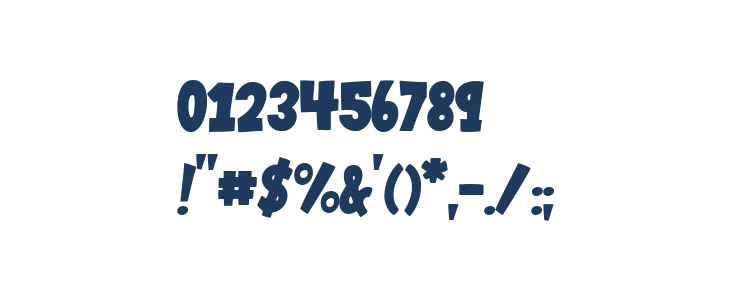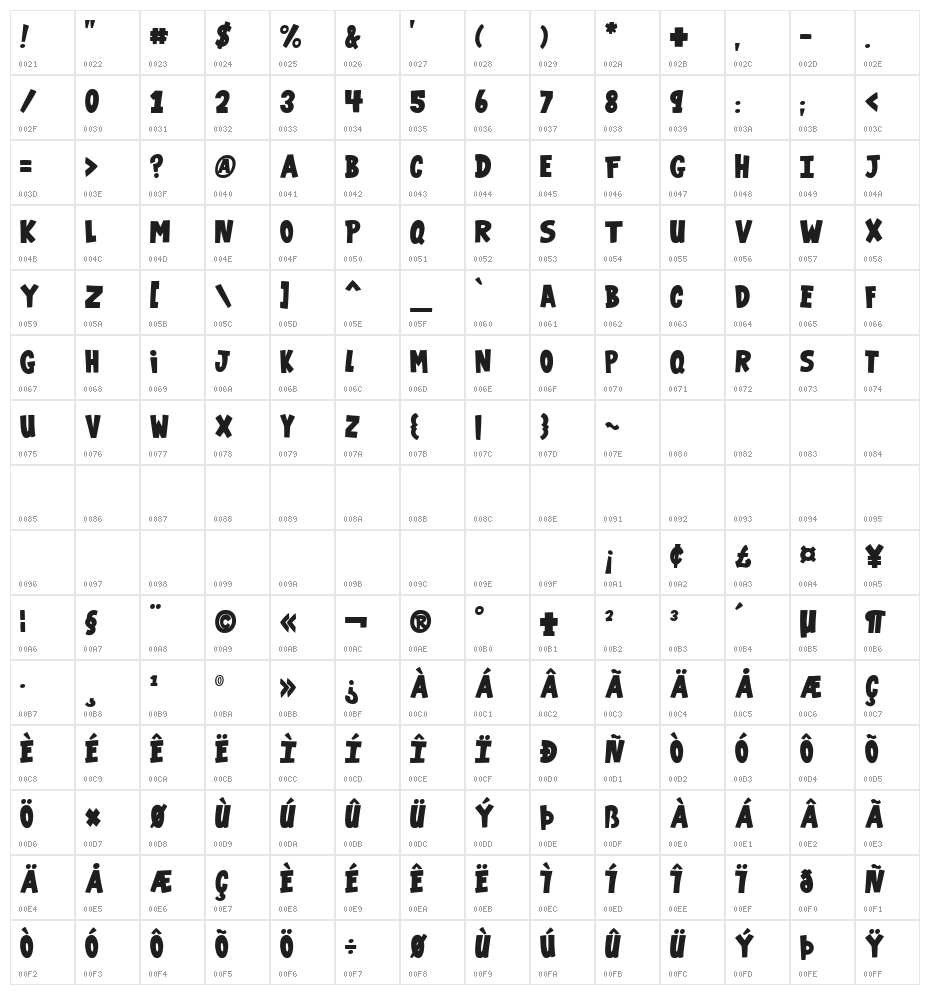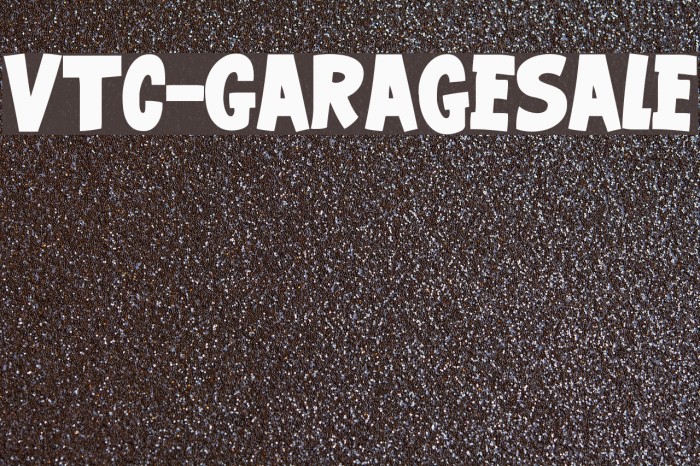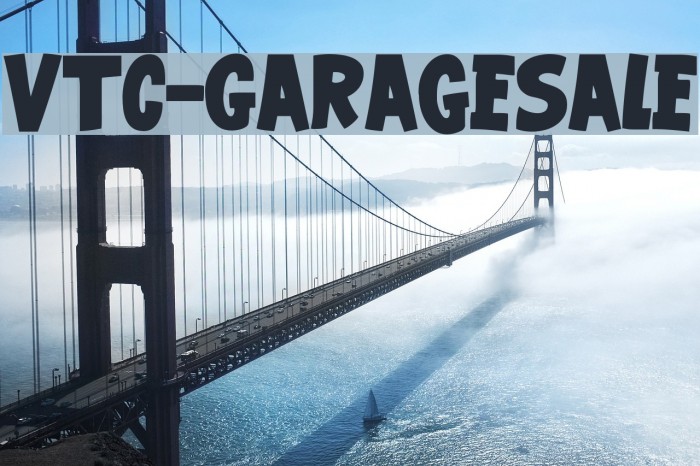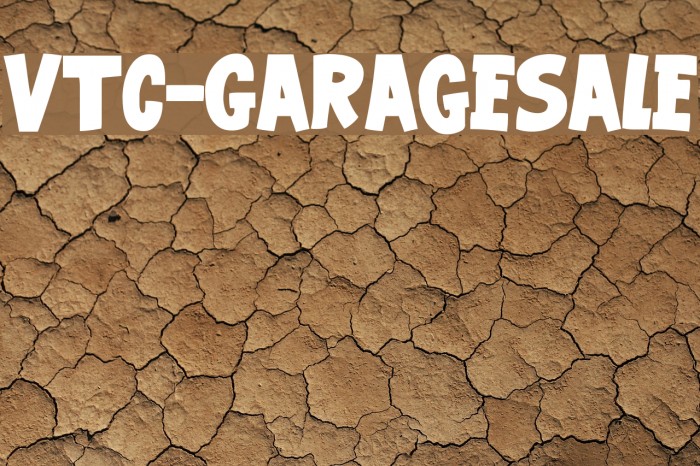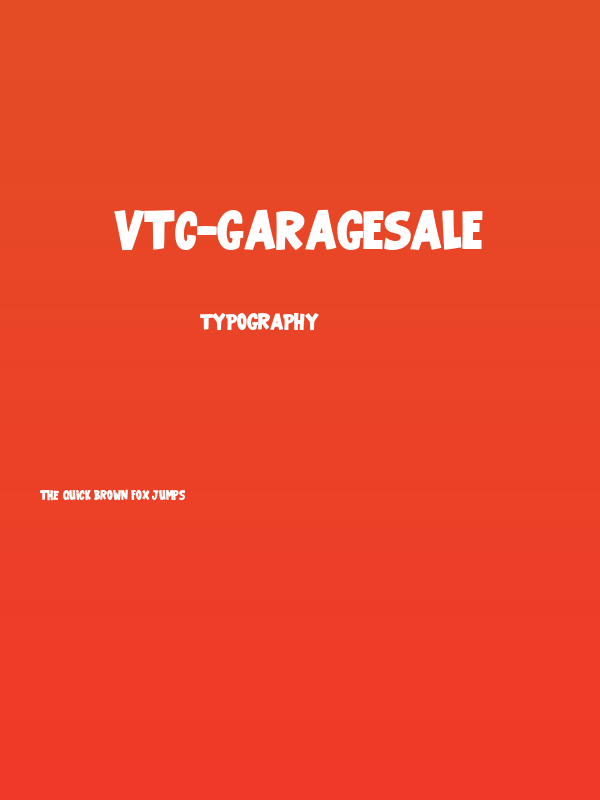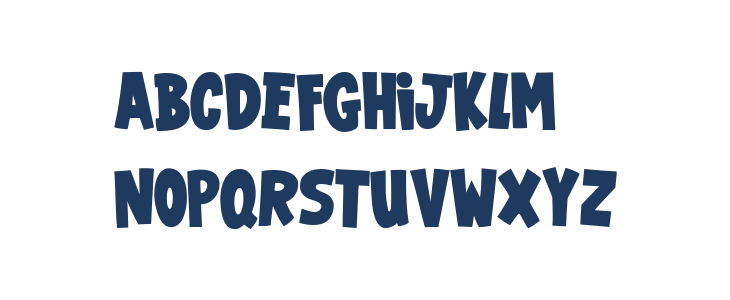
VTC-GarageSale Font
VTC-GarageSale Description
This font features a bold and playful style with exaggerated, rounded edges and a slightly irregular form that gives it a whimsical, hand-drawn appearance. The characters are thick and substantial, making them highly visible and impactful. The uppercase and lowercase letters maintain a consistent weight, contributing to a cohesive look. The numbers and special characters follow the same playful design, ensuring uniformity across all elements. This font's unique style is ideal for projects that require a fun and engaging visual element.
| Proposed Projects | Ideal for children's books, comic strips, playful branding, and event posters. |